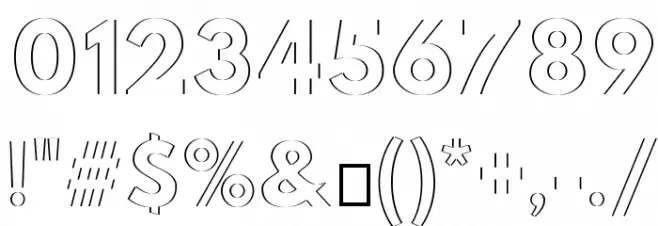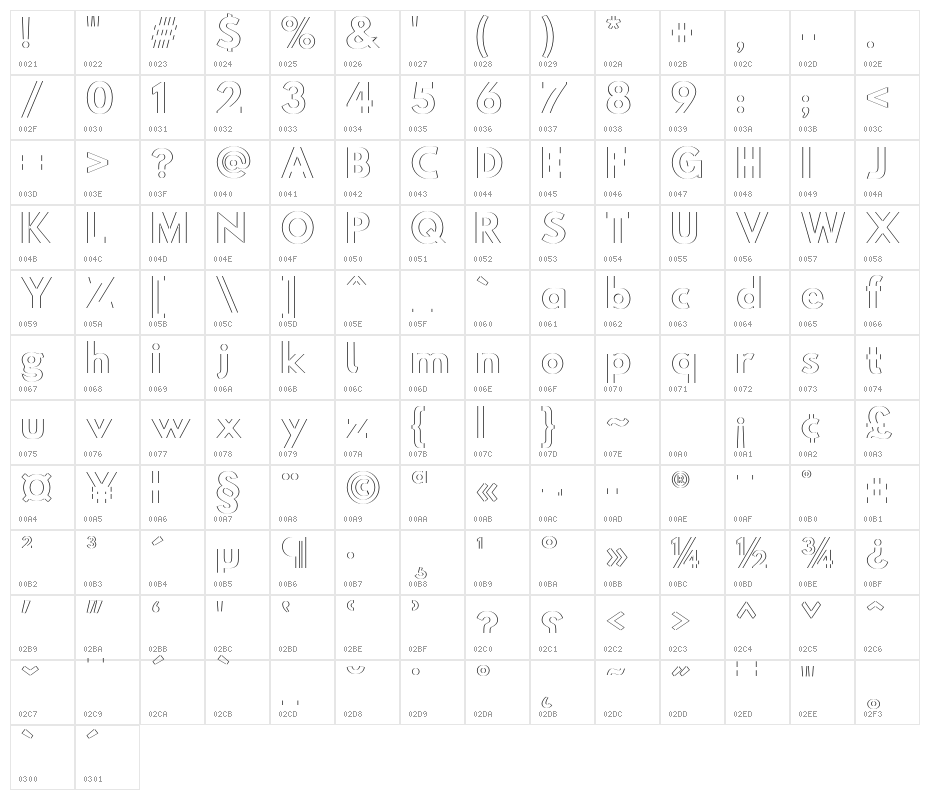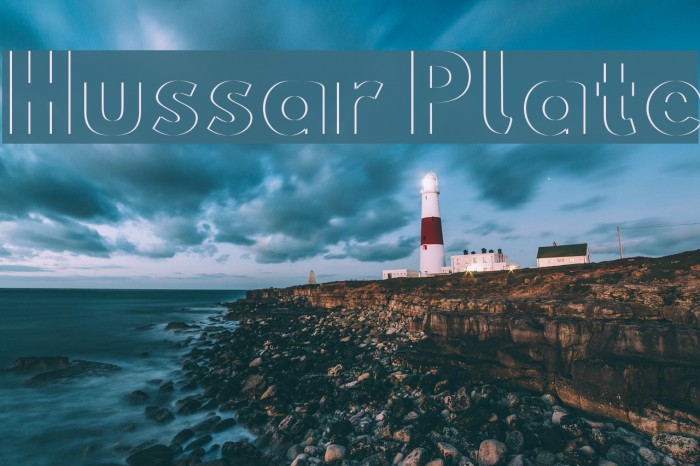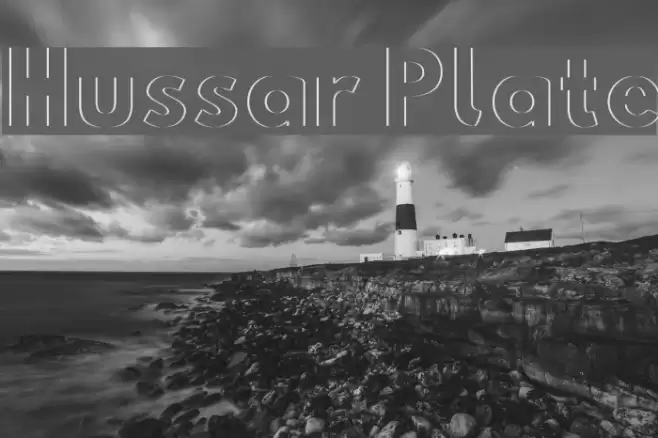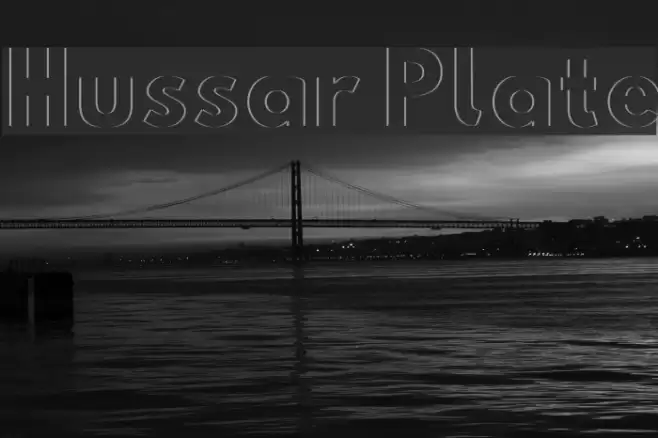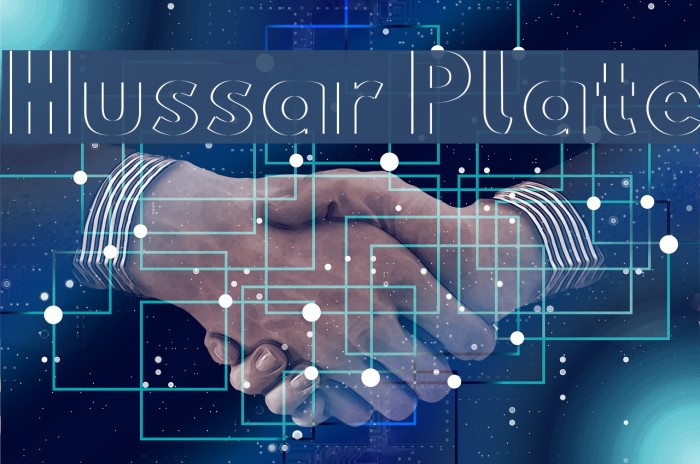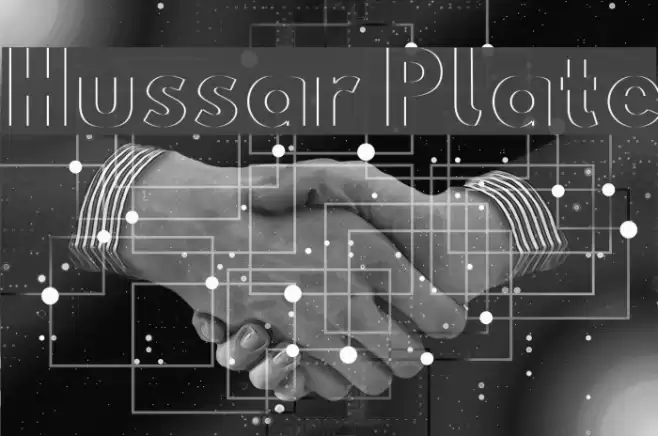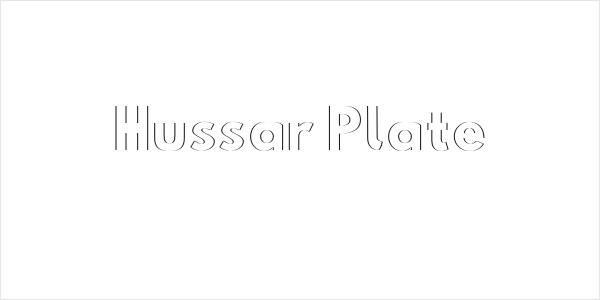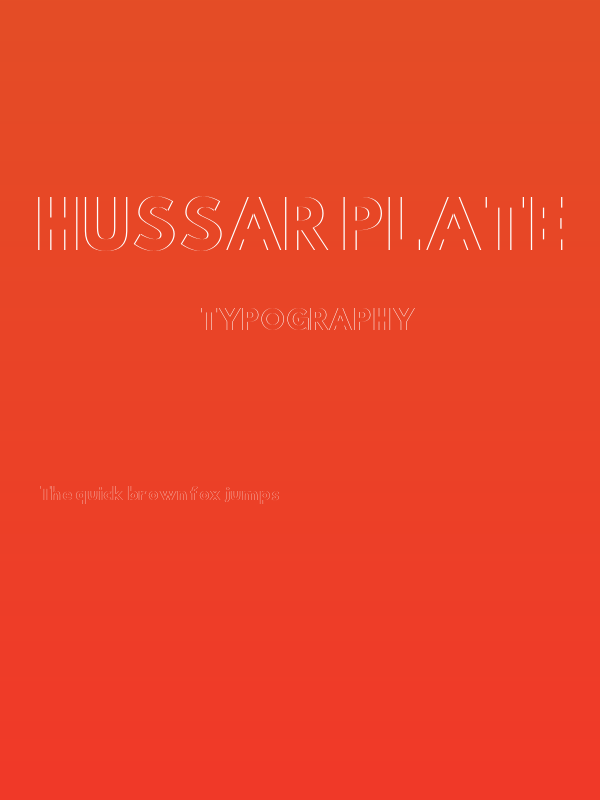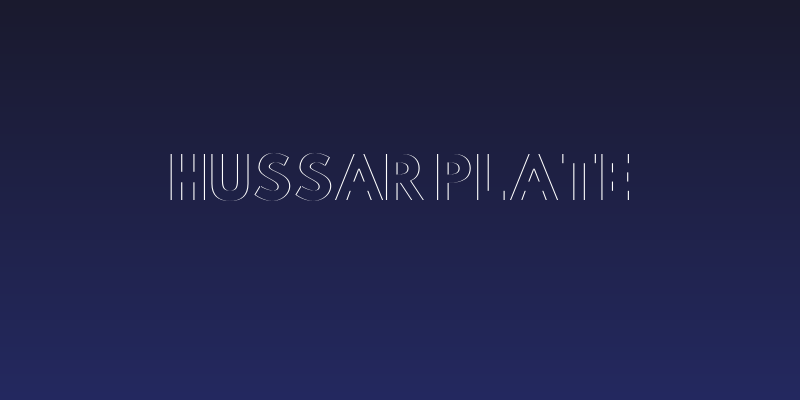
Hussar Plate Font
Hussar Plate Description
This font features a modern and geometric design with a unique stencil-like appearance. The characters are constructed with clean, straight lines and precise curves, creating a sense of structure and order. The uppercase letters exhibit a bold presence, while the lowercase letters maintain a consistent style, offering a harmonious blend of formality and creativity. The numerals are distinct and easily readable, complementing the overall aesthetic. Special characters are designed with the same attention to detail, ensuring versatility across various applications.
| Proposed Projects | Ideal for branding, posters, and editorial design where a contemporary and structured look is desired. |